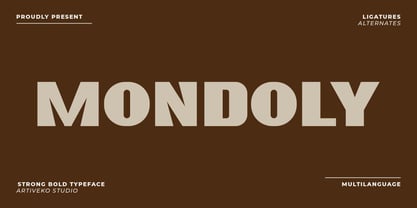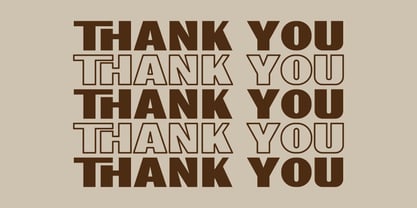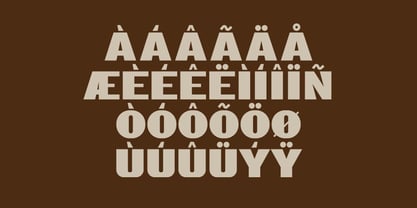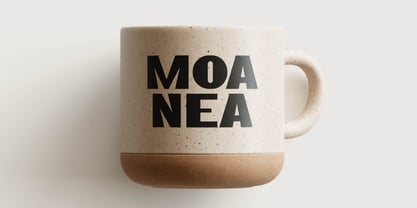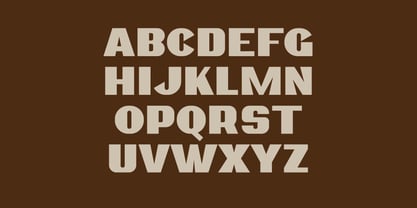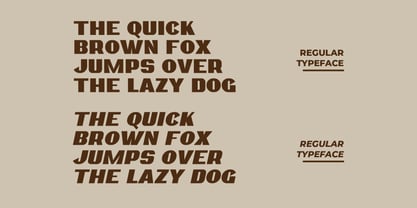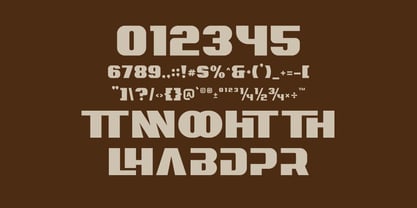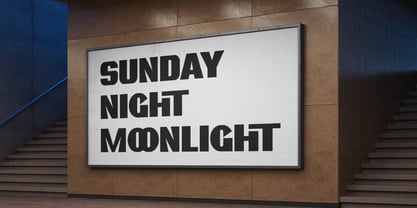
Mondoly
by Artiveko
The Mondoly Font Family was designed by Iwan Alwan and published by Artiveko. Mondoly contains 2 styles and family package options. More about this family
Mondoly is a strong bold sans serif font designed to command attention. With powerful letterforms and a solid structure, it’s ideal for impactful headlines, branding, posters, and sports or tech-inspired designs. Featuring multilingual support, alternates, and ligatures, Mondoly delivers confidence and clarity in every use—perfect for bold visual statements.
Designers: Iwan Alwan
Foundry: Artiveko